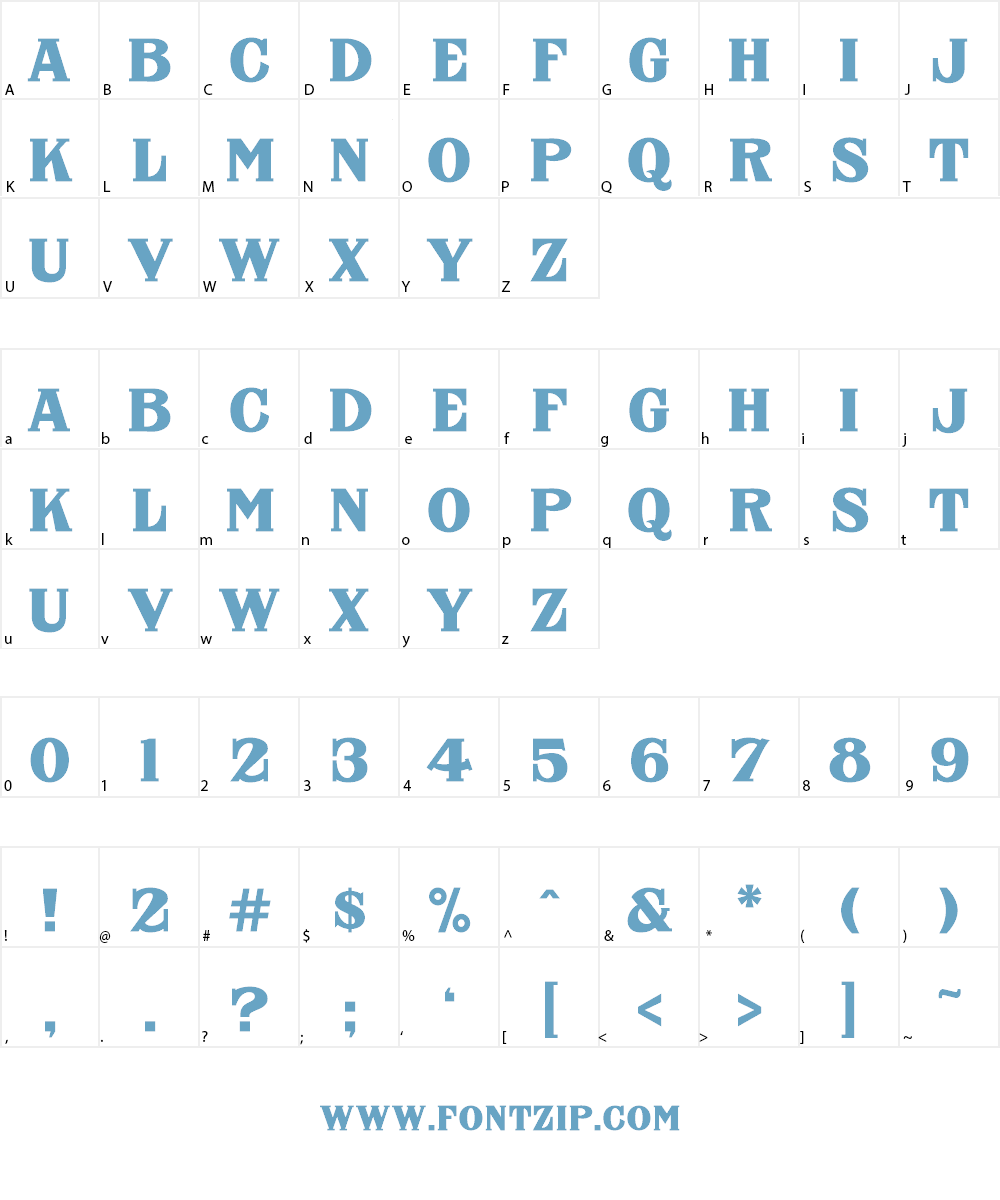
Freeware download is uppercase only characters. For lowercase range of characters and OpenType replacement features, please purchase the commercial version of this font.
Originally given digital life in 1999, Nicholson French now re-emerges over a decade later in modern typographic trim. When you purchase the commercial version, it comes complete with OpenType replacement features and boasts complete multi-language support, from the standard Latin-1 range to Latin Extended-A (Central European), Cyrillic and Greek. Both OTF and TTF formats are included. At over 100 years old and counting, this alphabet by legendary sign-painter Frank H. Atkinson continues to prove it can still stand the test of time.